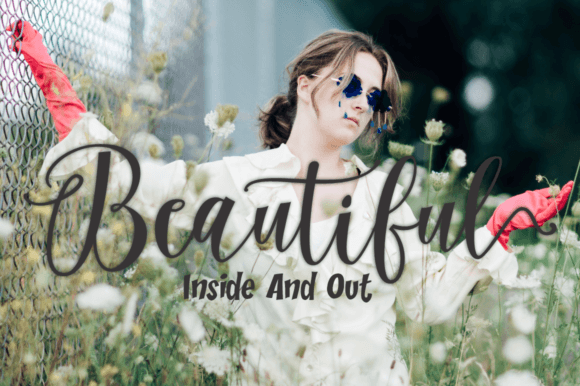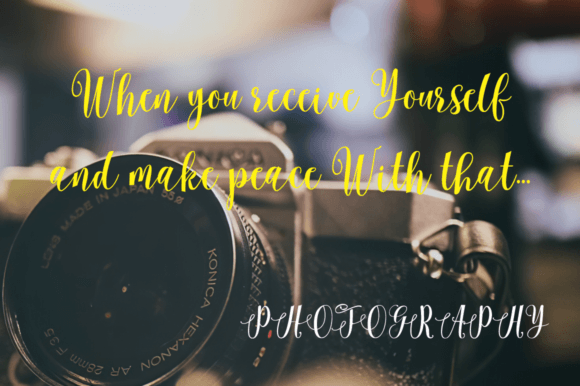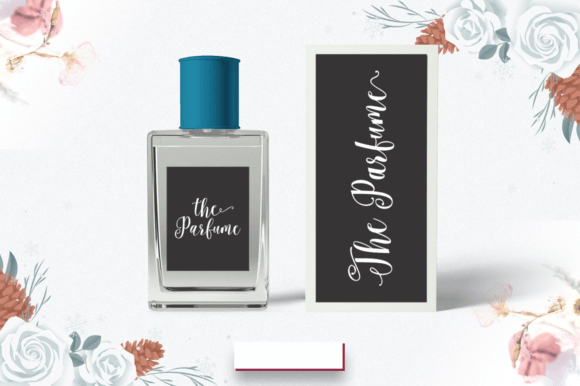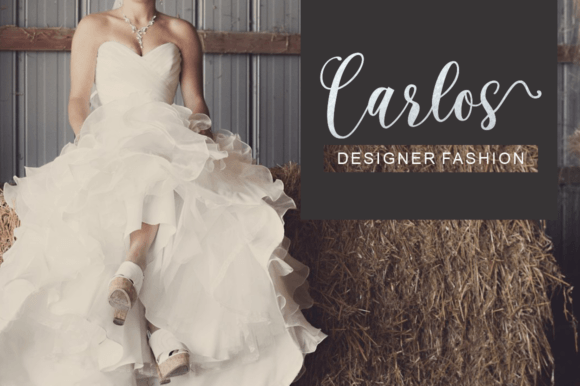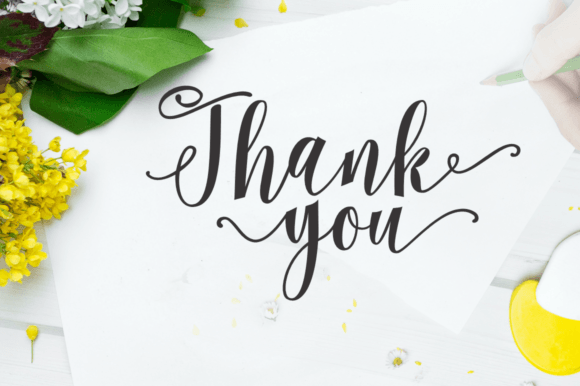
Yasmine Script Font
About Yasmine Script Font
“Yasmine Script” emerges as a font that encapsulates beauty and refinement, presenting itself as a script font with a delightful blend of class, elegance, and modernity. With its sophisticated appearance, this font becomes a versatile and captivating choice that can elevate a wide array of design projects, spanning logos, branding, invitations, stationery, wedding designs, social media posts, and beyond.
The allure of “Yasmine Script” resides in its meticulous script design. Each letter is carefully crafted to convey a sense of grace and style, contributing to an overall aesthetic that is both timeless and contemporary. This characteristic makes the font an ideal choice for projects that seek a harmonious balance between classic elegance and a modern look.
The refined nature of “Yasmine Script” makes it particularly well-suited for branding and logo design. It has the ability to communicate a sense of sophistication and elegance, rendering it suitable for businesses and projects aiming to establish a strong visual identity. The font’s versatility ensures that it can seamlessly adapt to various industries and design themes.
In the realm of invitations and stationery, especially for events like weddings, “Yasmine Script” serves as a splendid choice. Its elegant and modern appearance can enhance the overall aesthetic of invitations, creating a lasting impression on recipients. The font’s adaptability becomes a valuable asset for crafting cohesive and visually striking wedding designs.
Social media posts benefit from the classy and modern demeanor of “Yasmine Script.” Whether employed in quotes, announcements, or promotional graphics, the font brings a touch of sophistication to the visual content. Its versatility ensures that it remains effective across diverse social media platforms.
In conclusion, “Yasmine Script” transcends being just a font; it’s a design tool that seamlessly combines beauty, refinement, and modernity. Its applications span a broad spectrum of design projects, positioning it as a go-to choice for designers seeking a versatile and elegant script font. By integrating “Yasmine Script” into your design repertoire, you’re embracing a font with the potential to enhance and elevate the visual language of your creations across various creative endeavors.